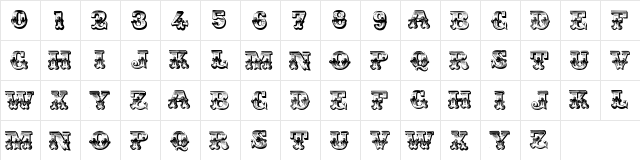
BraceletVictorian Regular
Design Context for BraceletVictorian Typeface
BraceletVictorian is a composed and adaptable typeface that performs quietly and consistently across a wide range of design contexts.